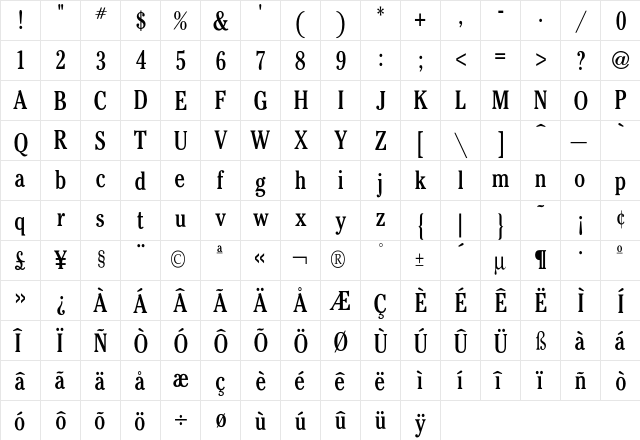
Cheltenham CondBook
Design Context for Cheltenham Typeface
Cheltenham is a composed and adaptable typeface that performs quietly and consistently across a wide range of design contexts. The condensed width makes it efficient for tight spaces without sacrificing legibility.